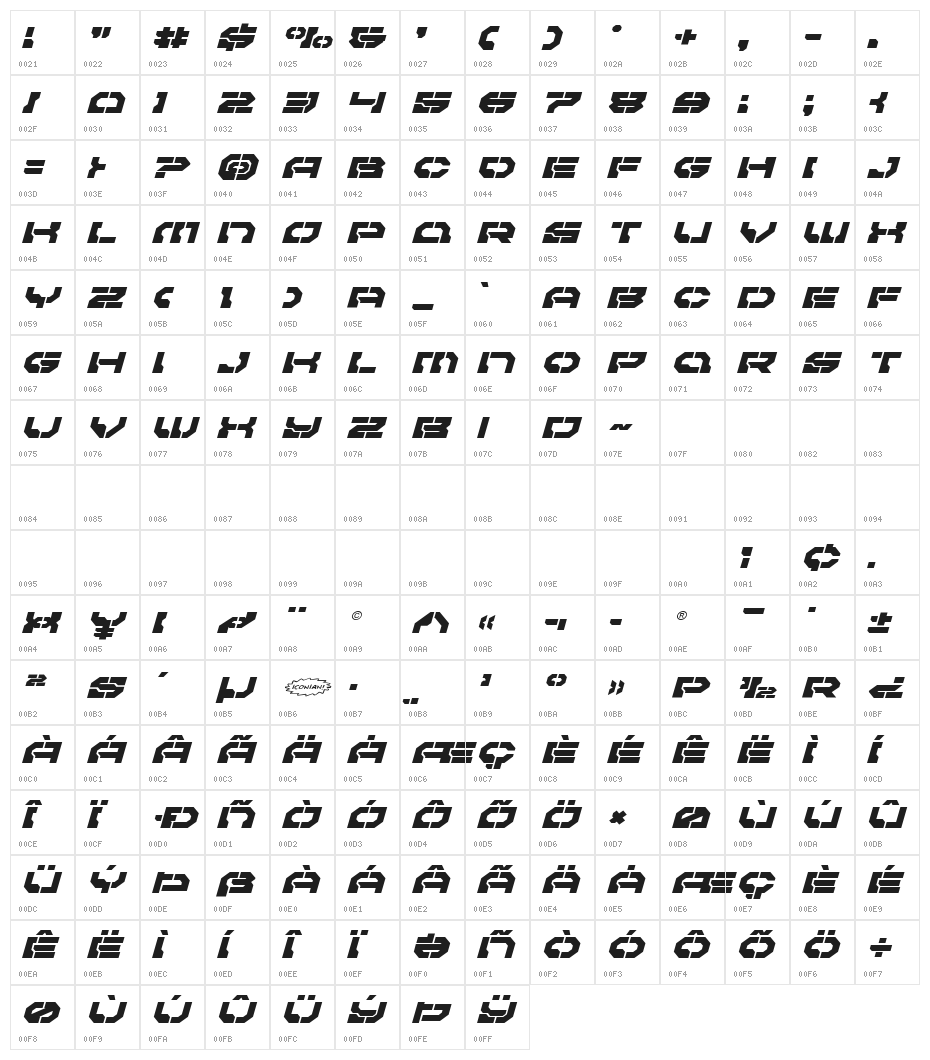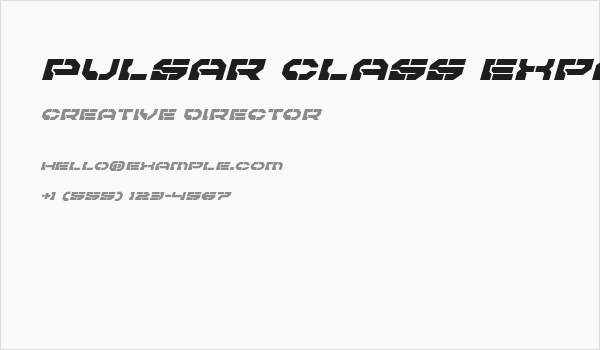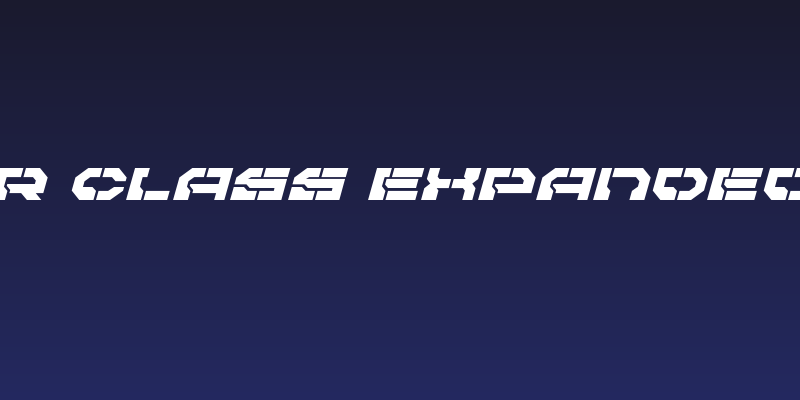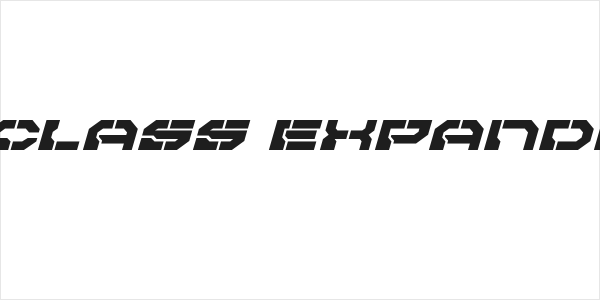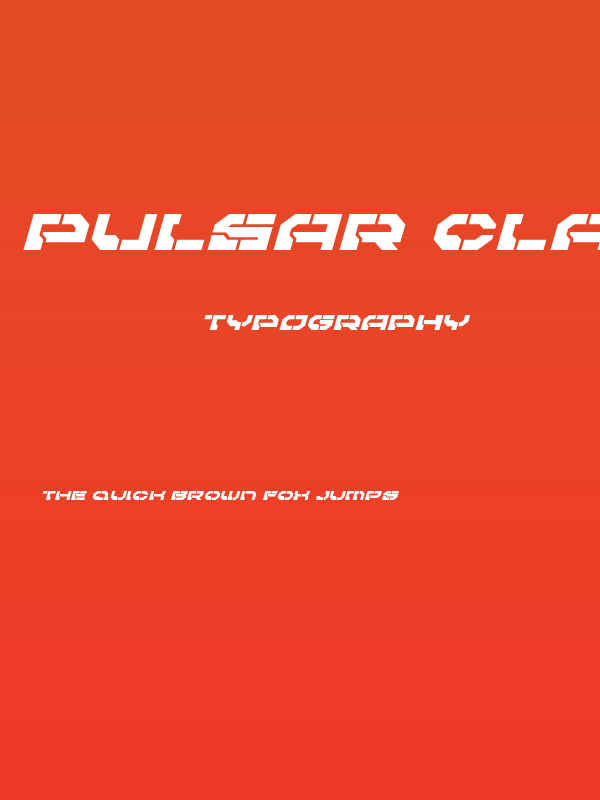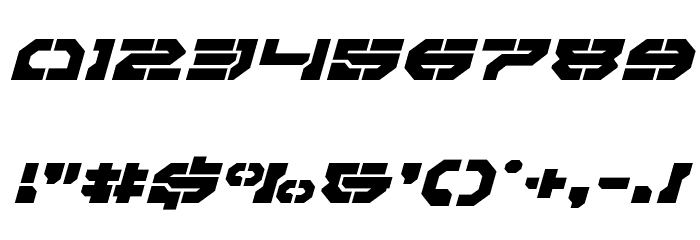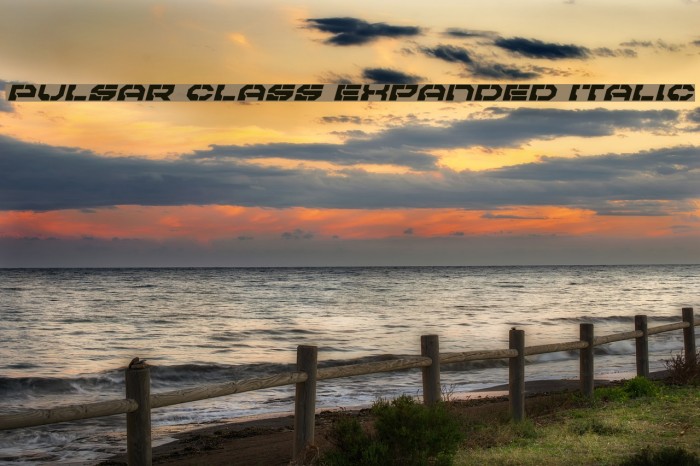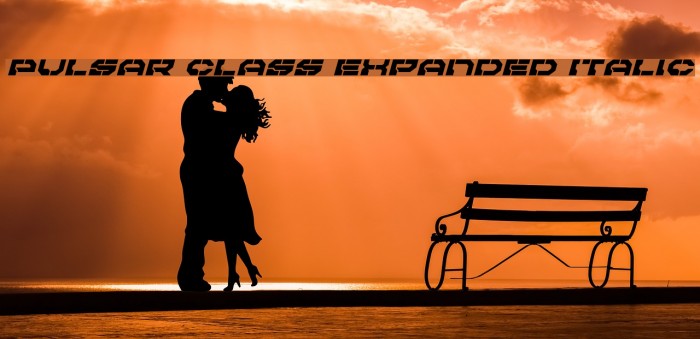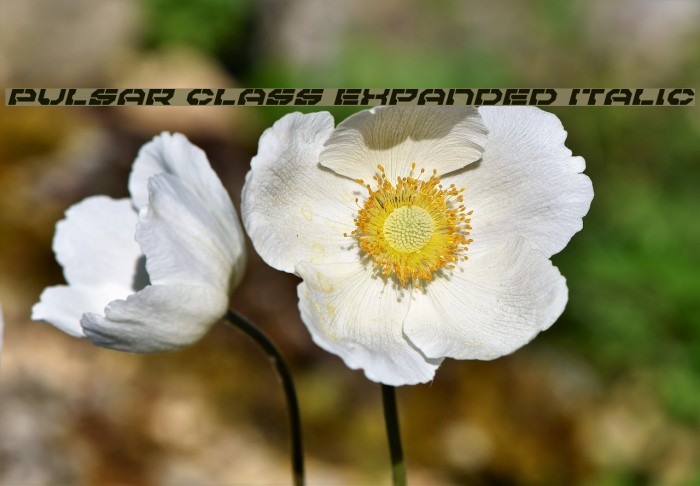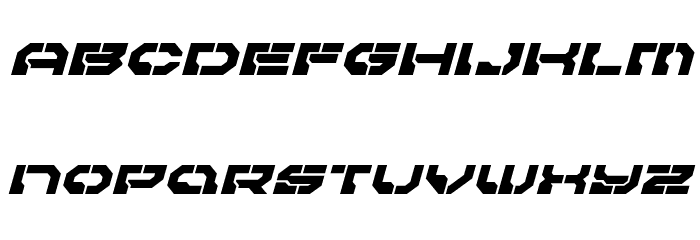
Pulsar Class Expanded Italic Font
Pulsar Class Expanded Italic Description
This font features a futuristic and dynamic design, characterized by its bold, angular shapes and expanded width. The italic slant adds a sense of motion and speed, making it ideal for projects that require a modern and edgy look. The characters are constructed with sharp, geometric forms, giving them a distinctive and striking appearance. The high contrast between thick and thin strokes enhances its readability while maintaining a unique style. This font is perfect for creating impactful headlines, logos, and branding materials that demand attention.
| Proposed Projects | Ideal for sci-fi themed designs, technology branding, sports team logos, and dynamic advertising campaigns. |